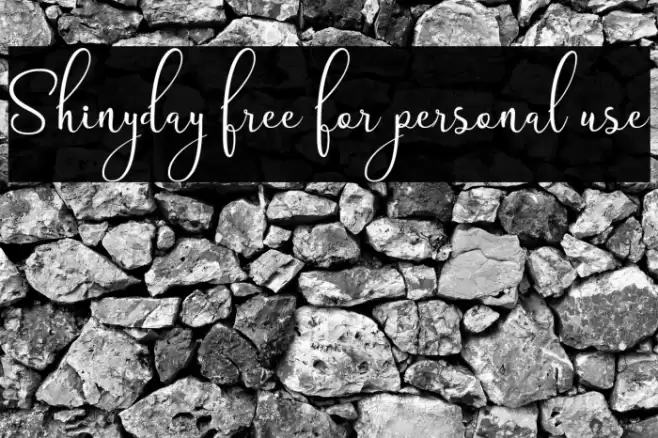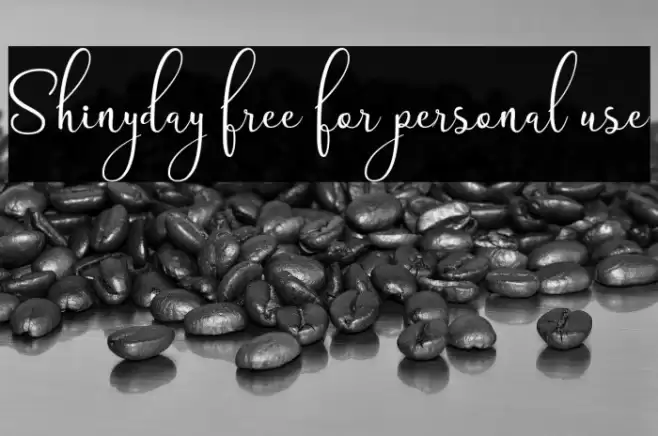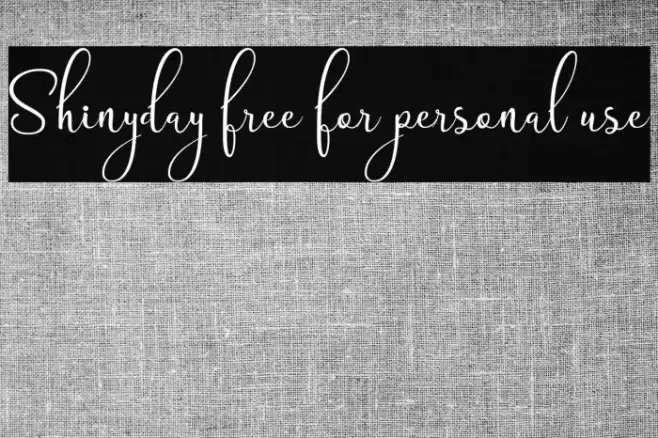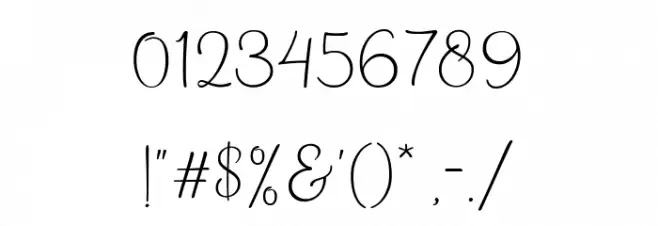
Shinyday free for personal use Font
Shinyday free for personal use Description
This font features an elegant and flowing script style, characterized by its delicate and graceful letterforms. The uppercase letters are ornate with sweeping curves and loops, giving a sense of sophistication and fluidity. The lowercase letters maintain a consistent style, with a slightly more compact form, yet still retaining the overall elegance. The numerals are clear and legible, with a slight slant that complements the script style. Special characters are designed to match the aesthetic, ensuring a cohesive look across all text. This font is ideal for projects that require a touch of elegance and refinement.
An elegant and flowing script font with ornate letterforms from Regular fonts.
- Proposed Projects: Wedding invitations, greeting cards, elegant branding, and luxury product packaging.
- Overall Style: Elegant
- Use Case: Logos, Invitations, Decorative text